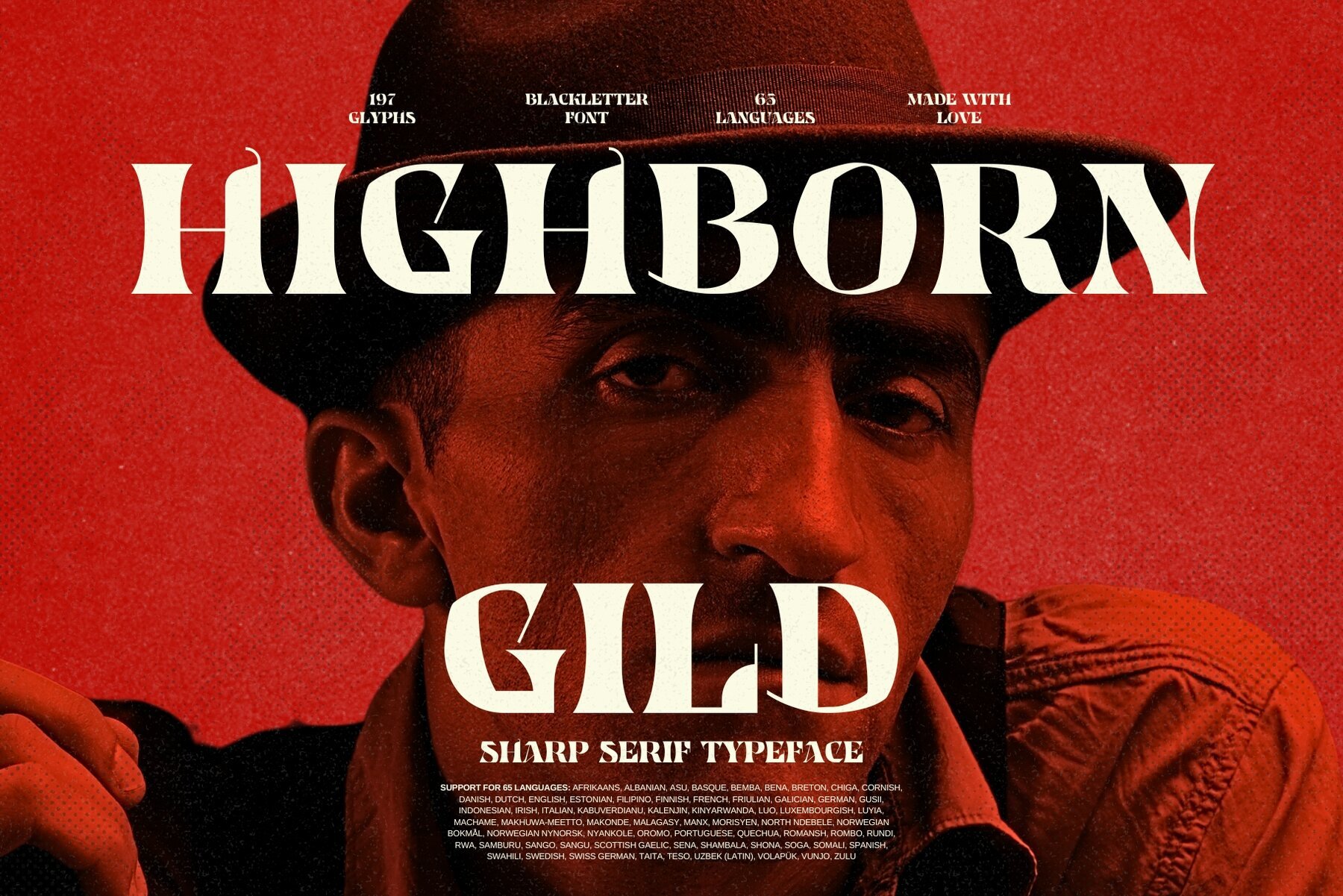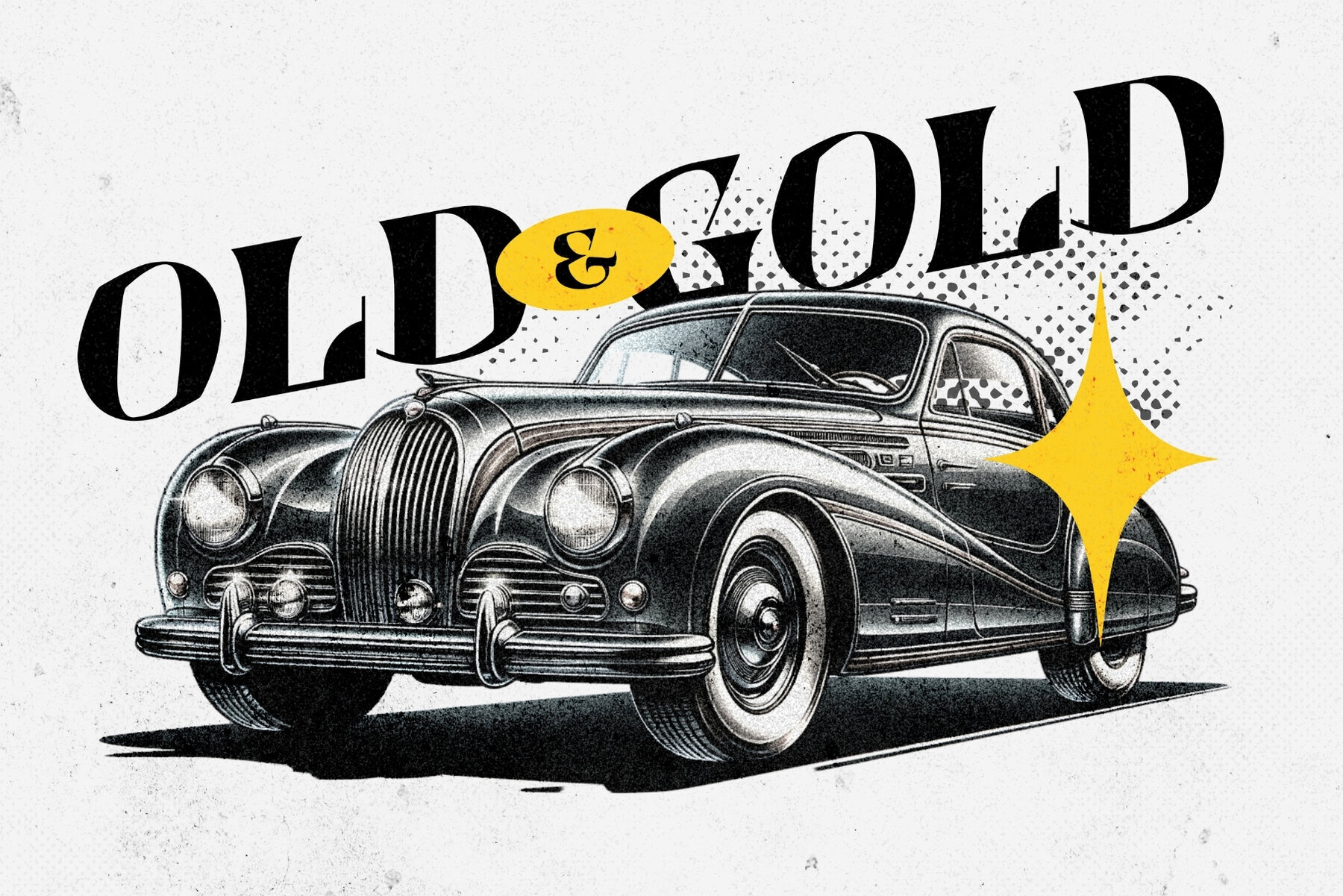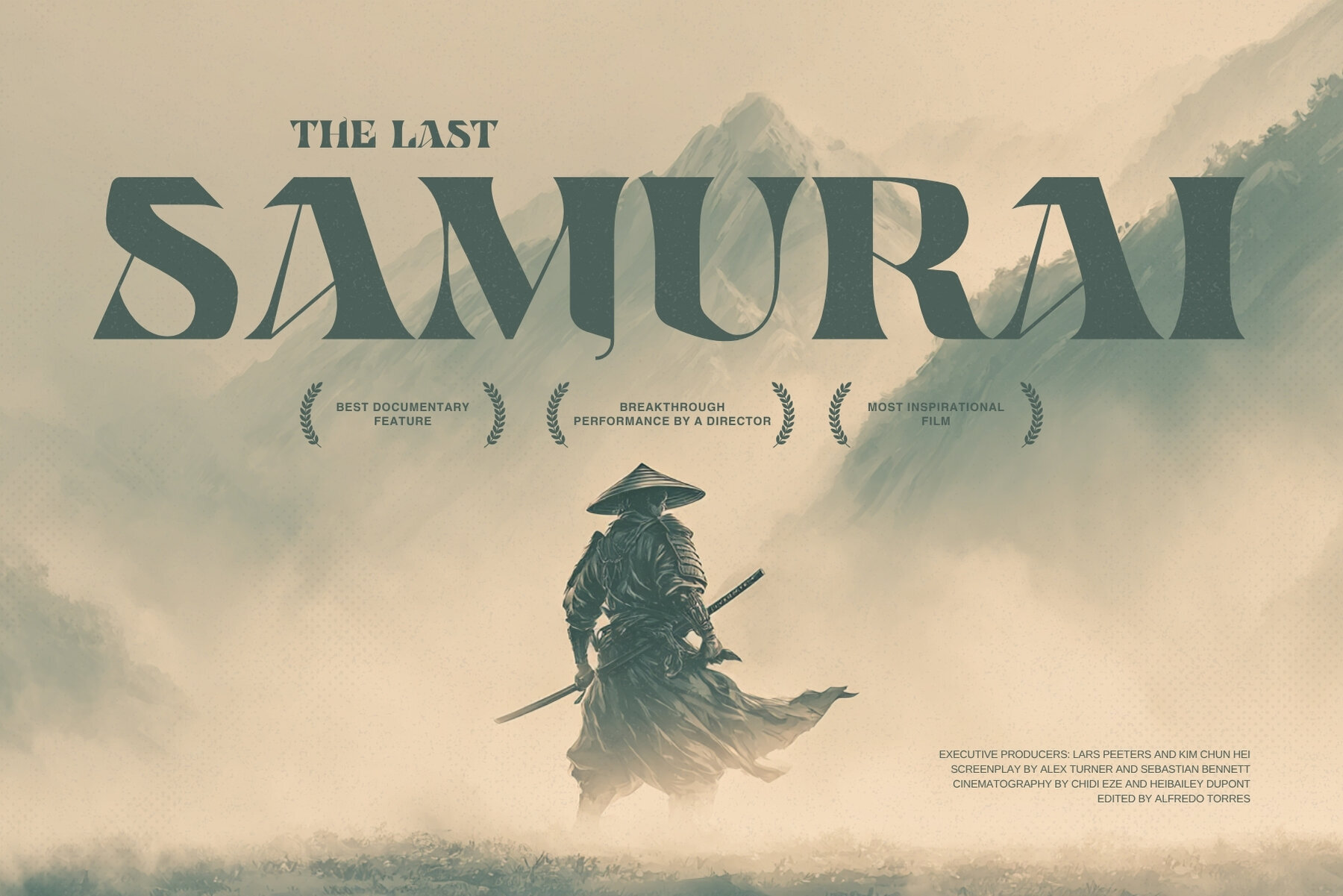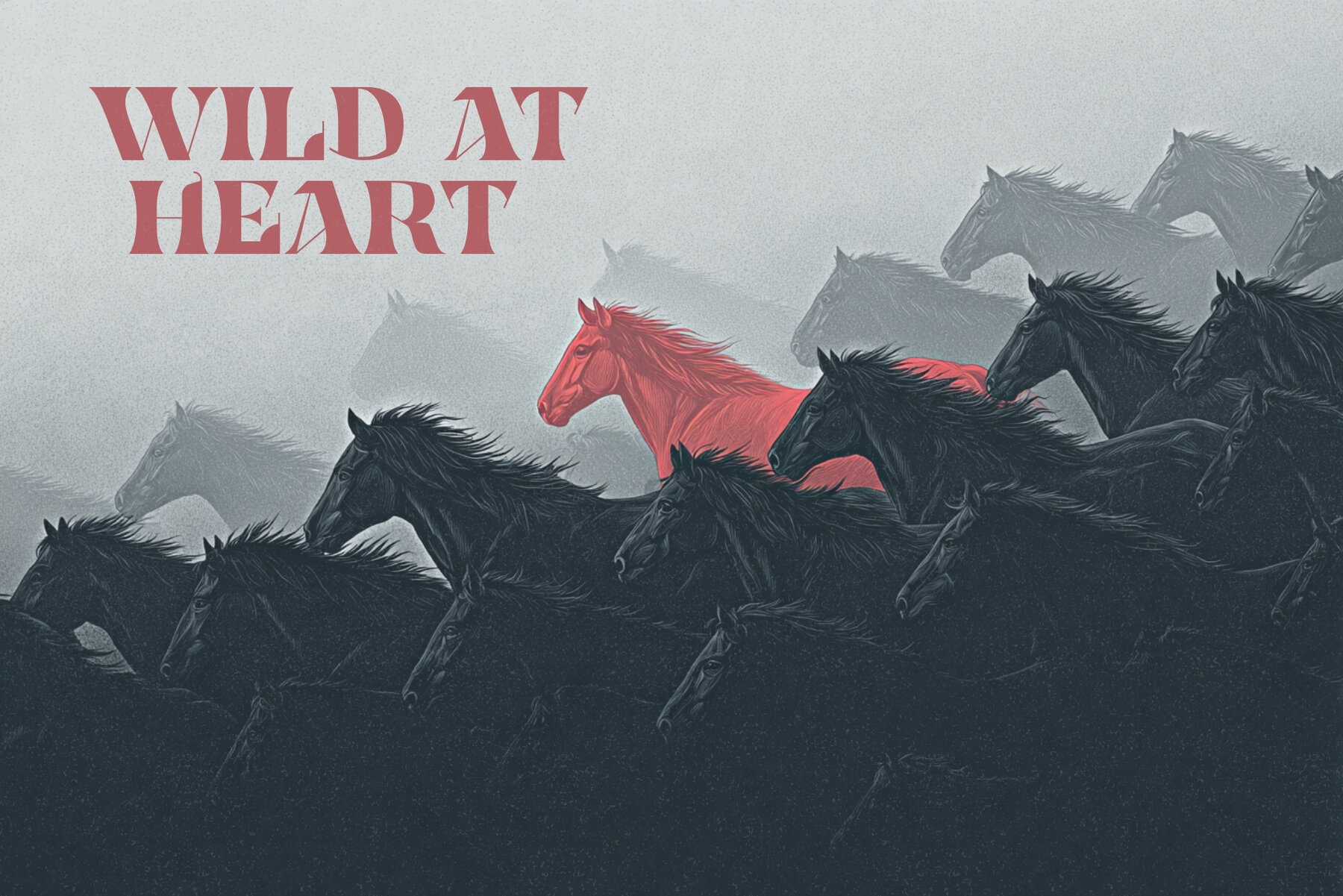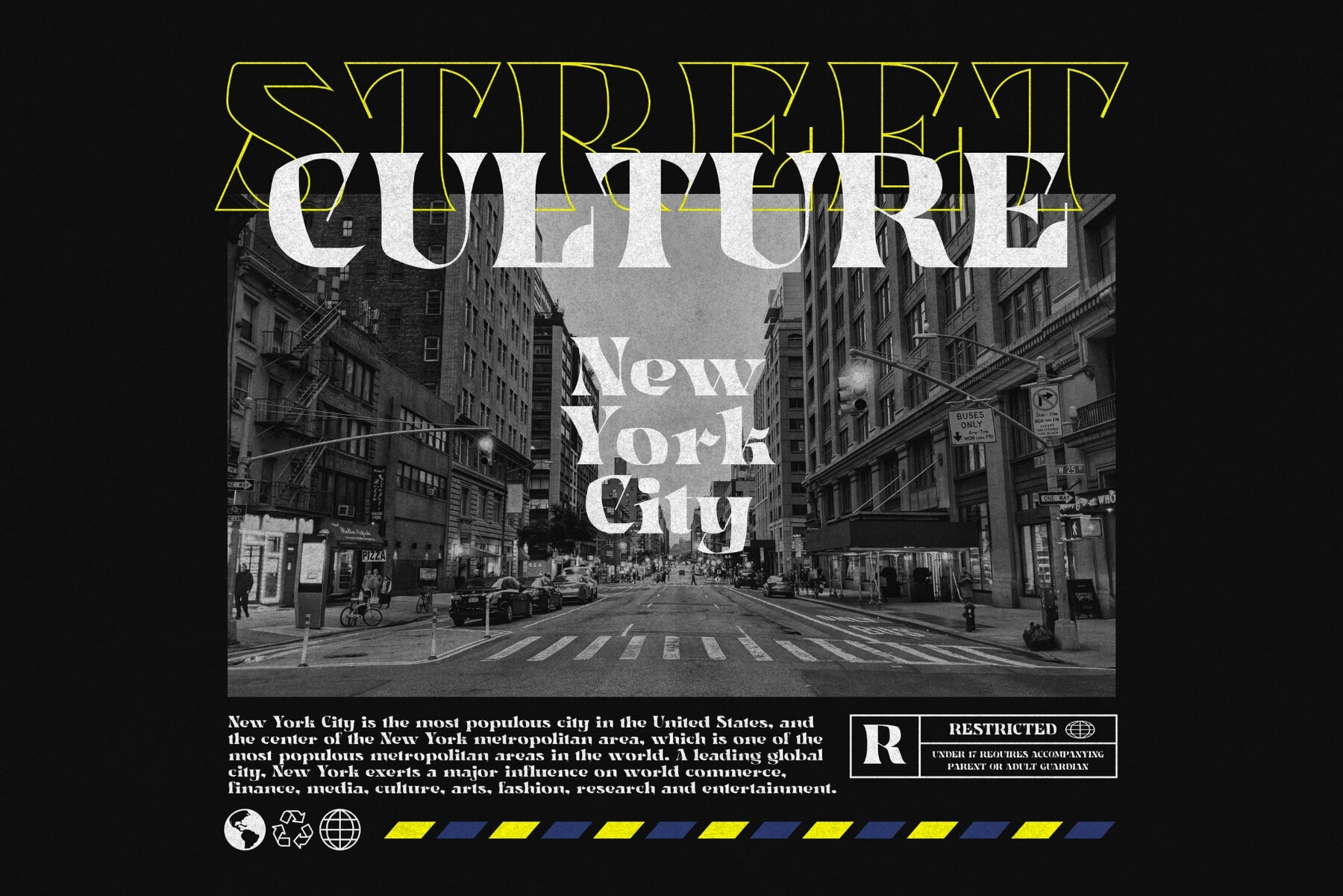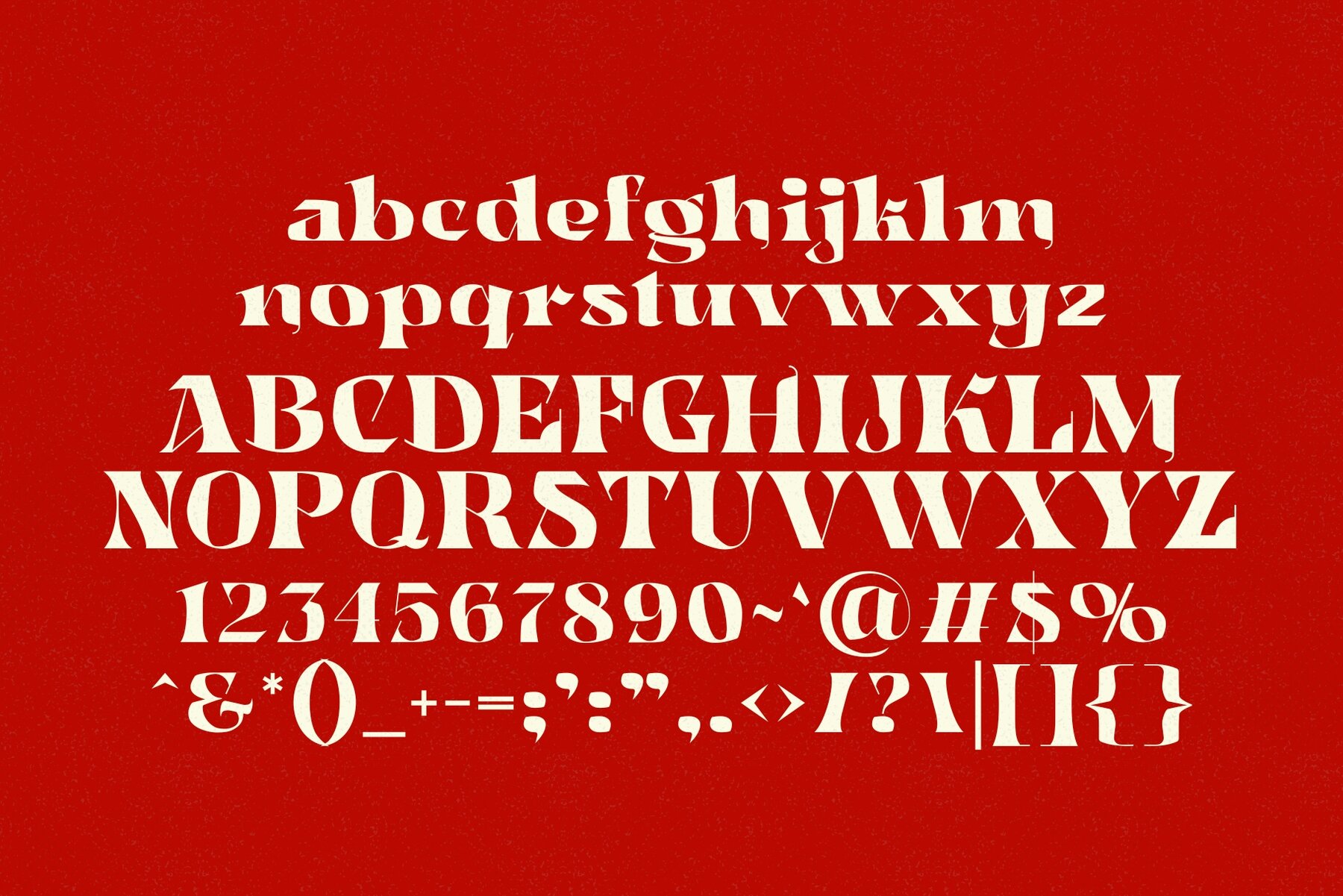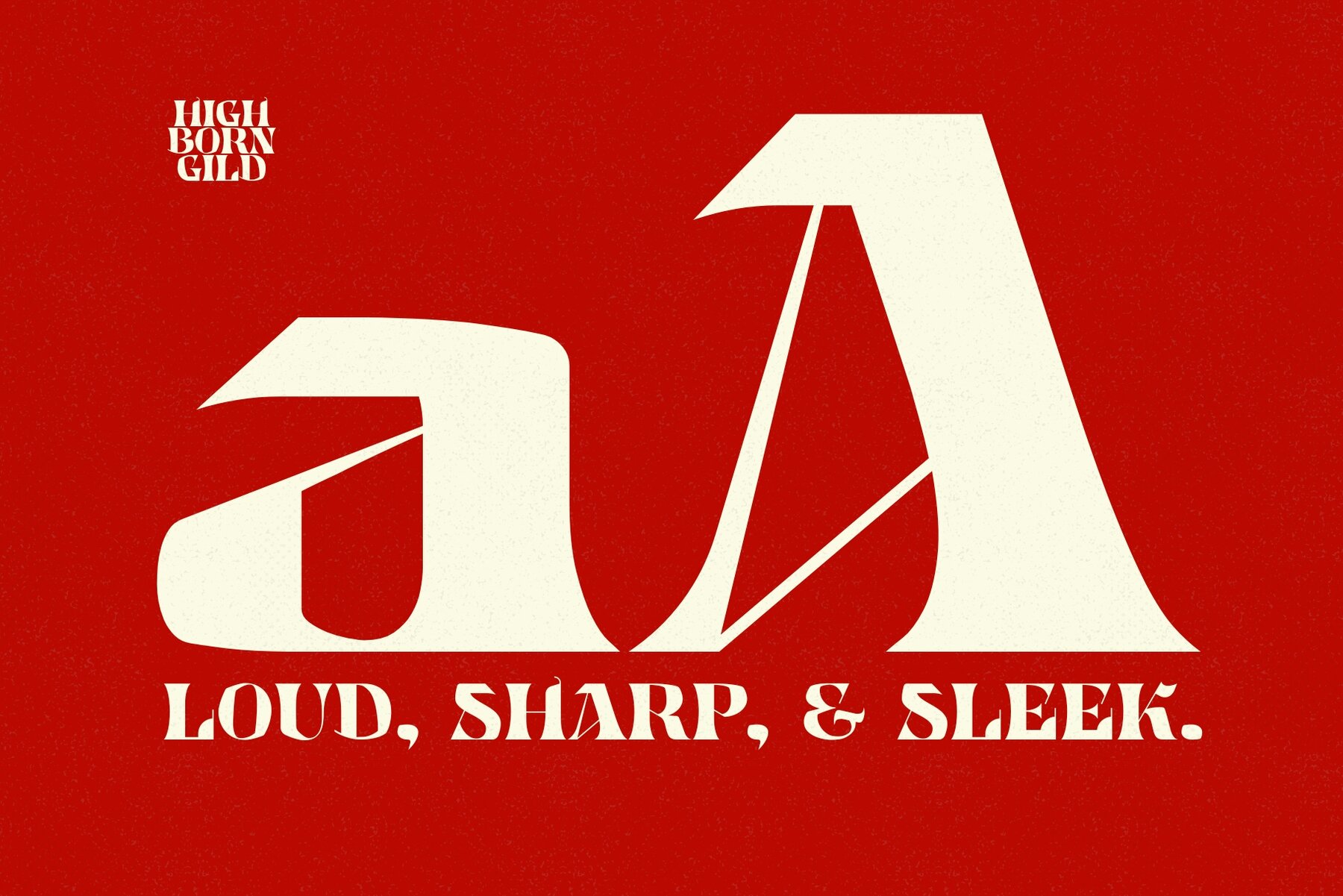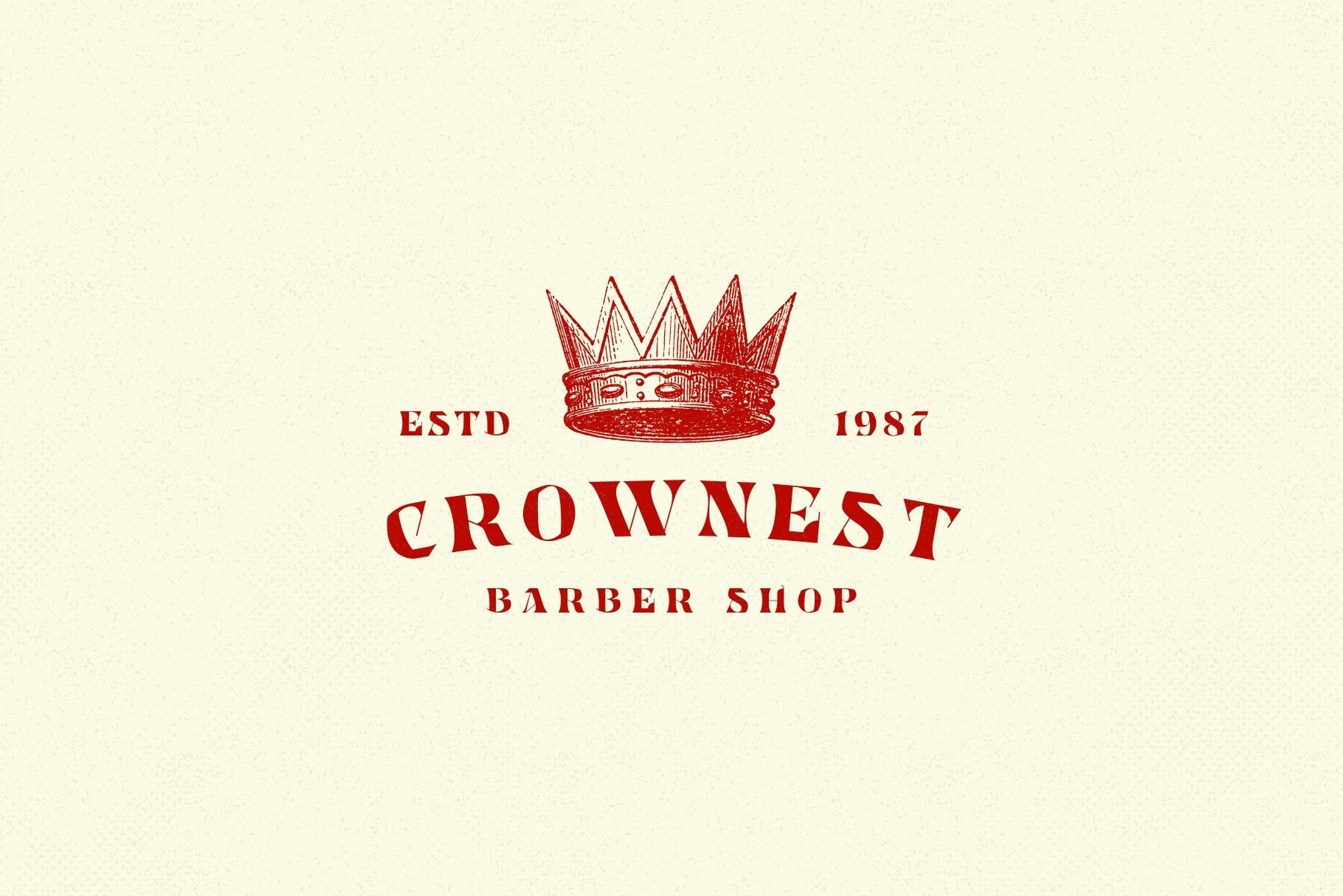
Highborn Gild Font
Highborn Gild
Highborn Gild is a serif typeface that melds the meticulous precision of a craftsman's blade with the timeless soul of blackletter traditions. This font embodies aristocratic might and medieval grace, showcasing razor-sharp serifs and the ornate intricacy of old-world calligraphy. Each character is meticulously crafted to evoke a sense of power, enigma, and sophistication. Ideal for projects ranging from luxury brand identities to legendary book covers, gothic editorials, and ceremonial event materials, Highborn Gild offers a distinctive blend of drama and elegance. It includes 197 glyphs and accommodates 65 languages, ensuring that your message resounds across diverse cultures.Highborn Gild: Commanding Serif Typeface